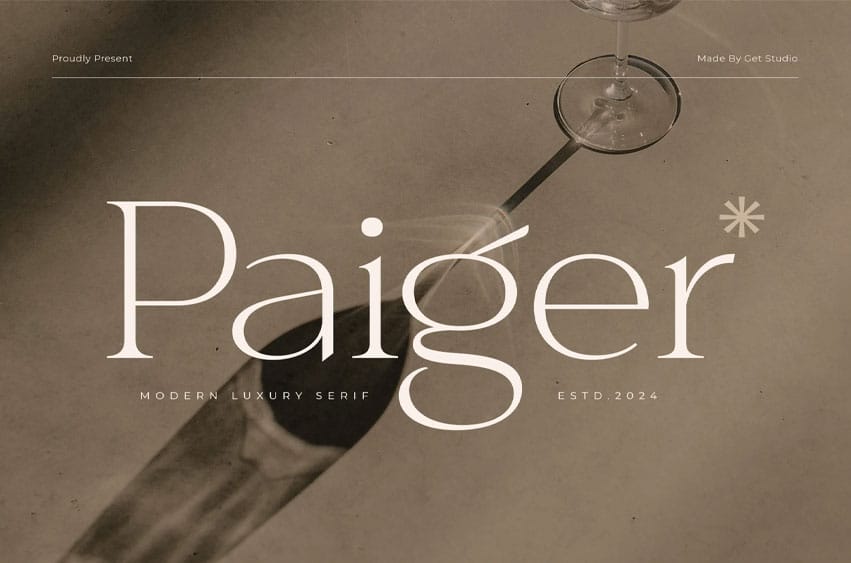
Paiger Font Modern Luxury Serif, where elegance meets flair. This refined serif font exudes sophistication with its smooth lines and contemporary charm.
Elevate your designs with Paiger’s timeless appeal, perfect for adding a touch of class to any project.